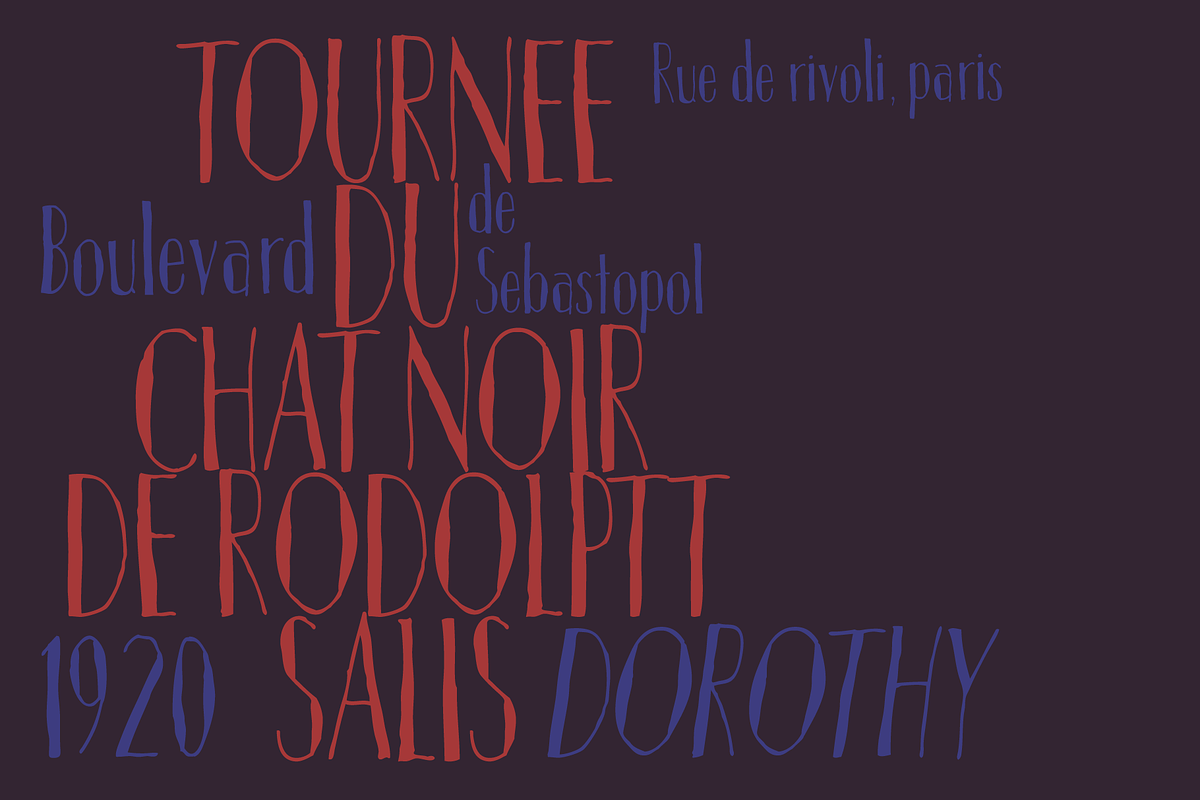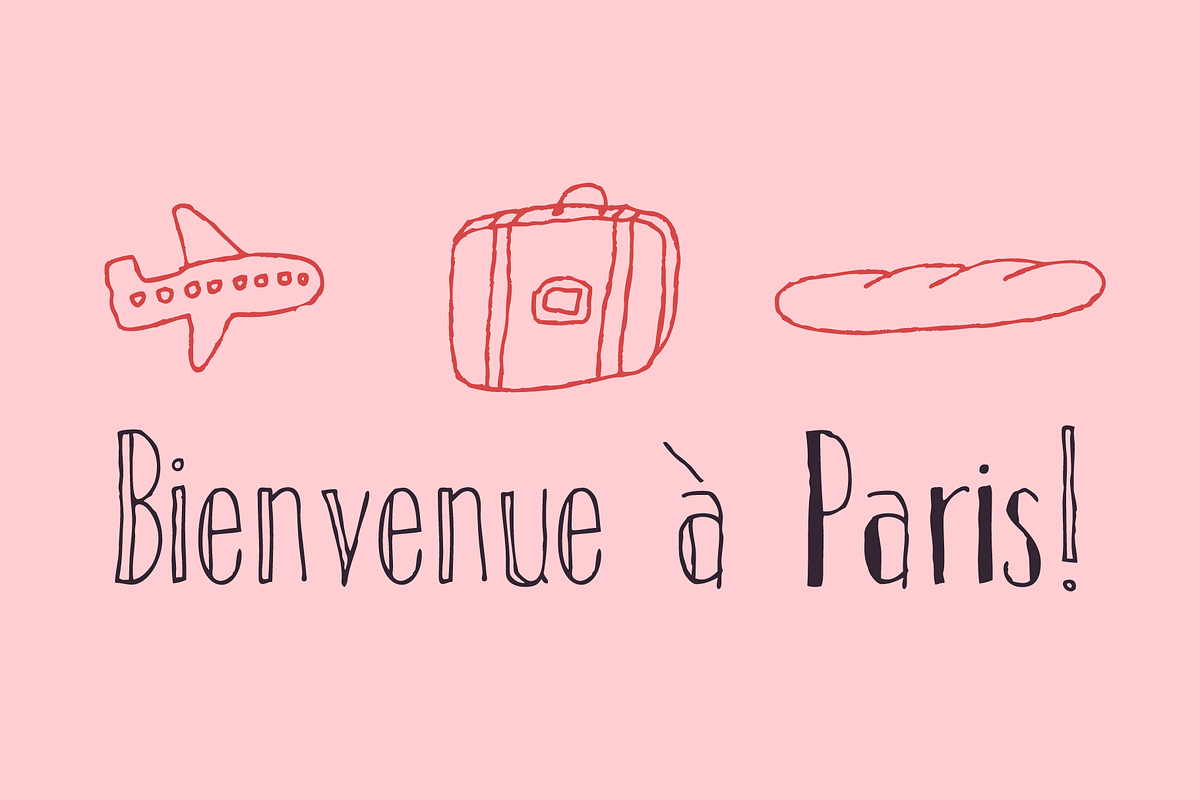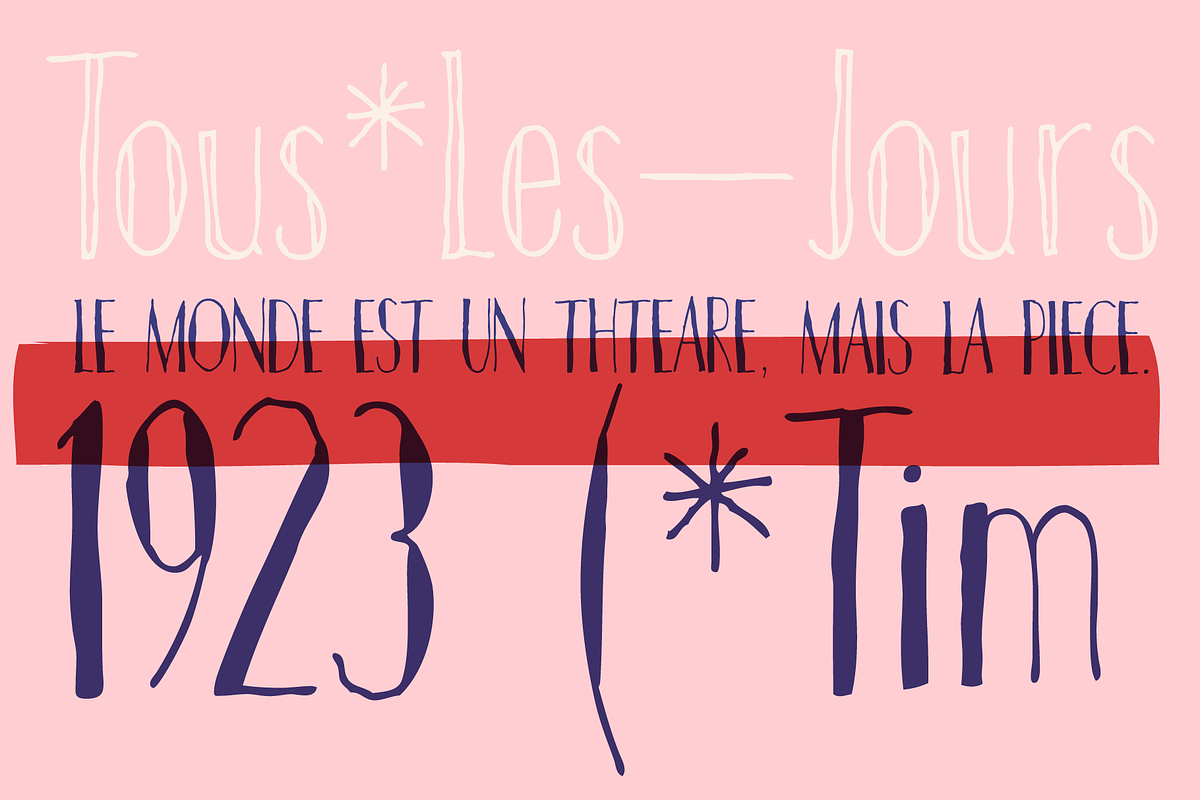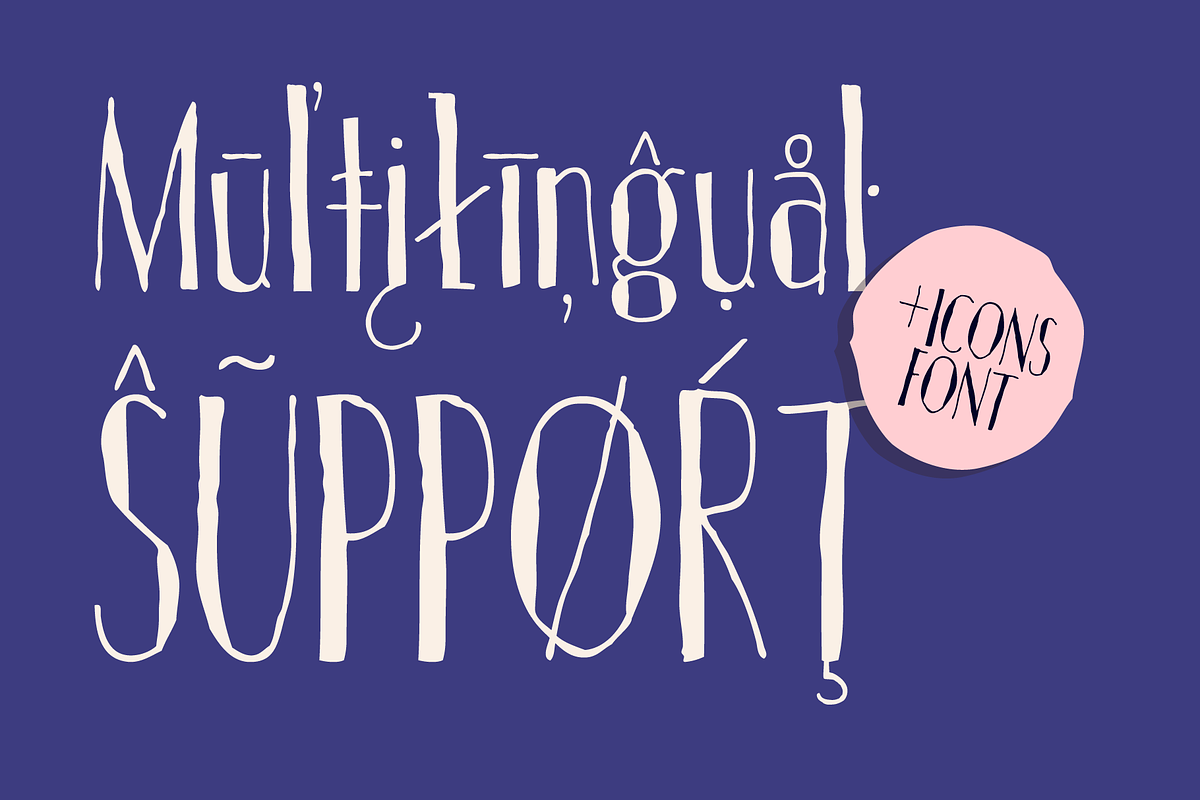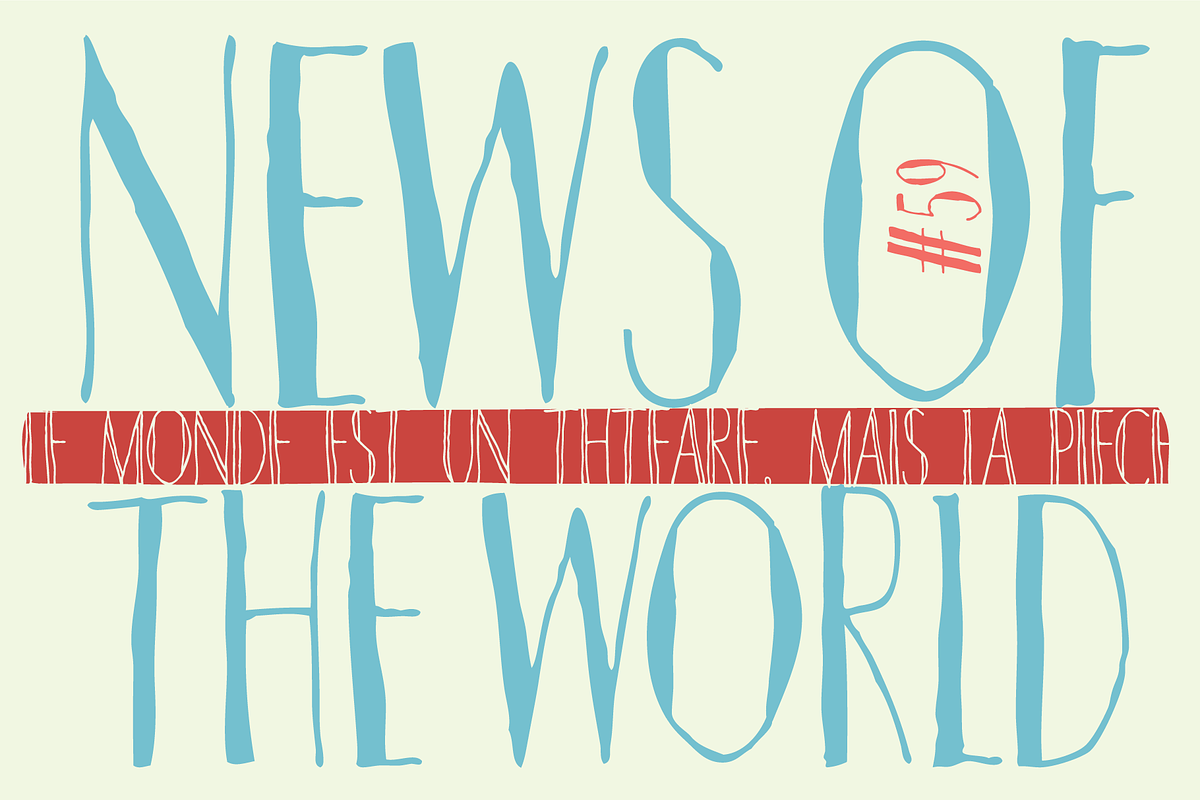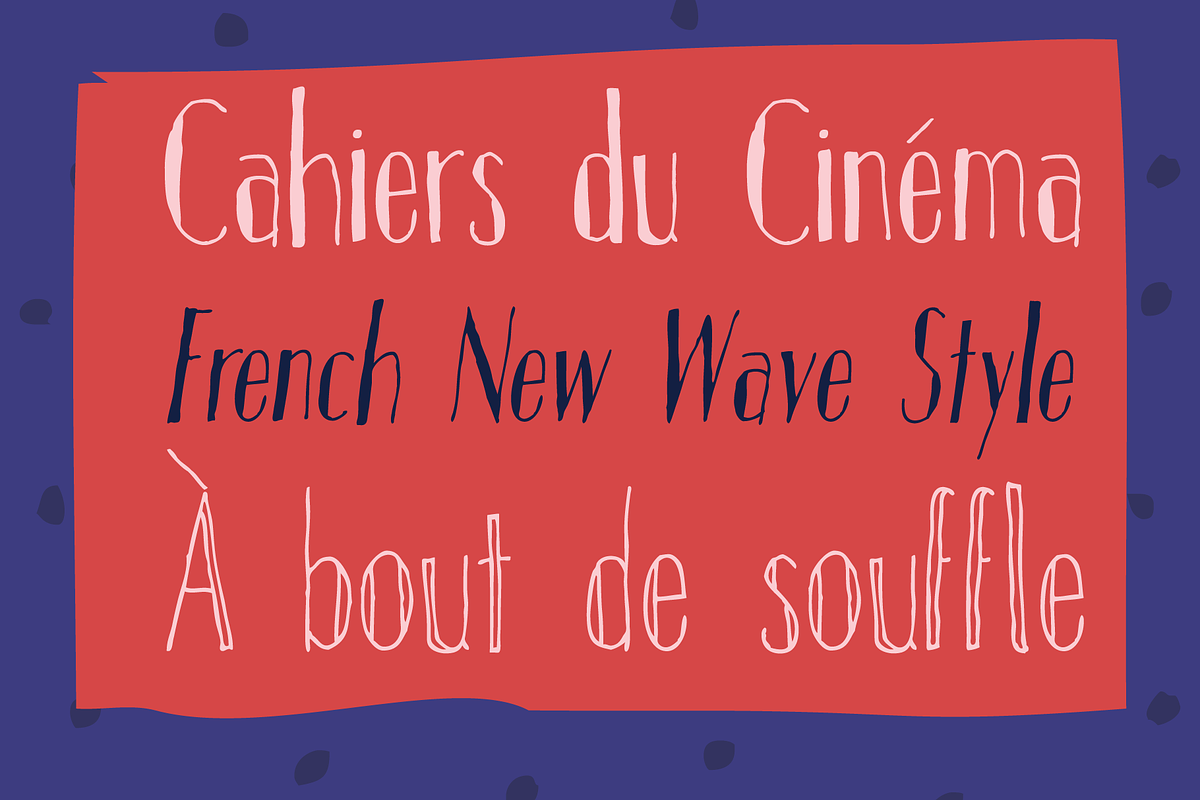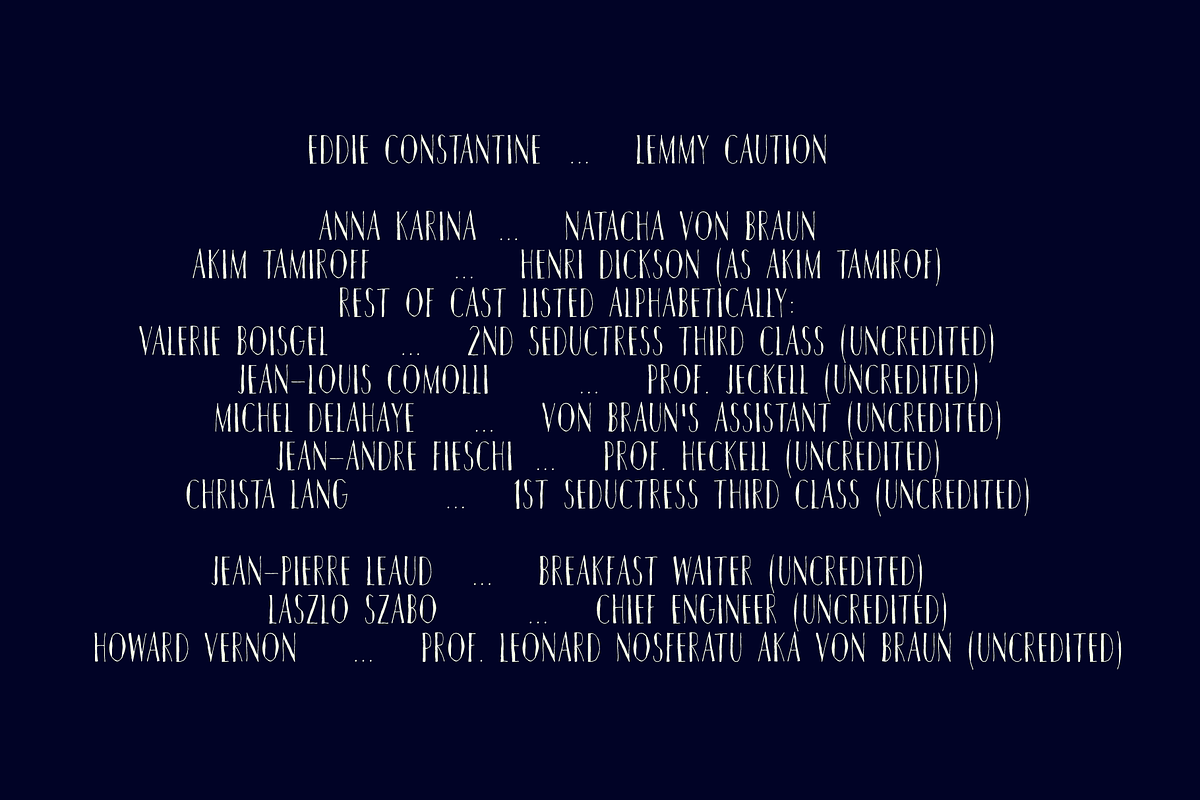
TOMO Dora
TOMO Dora is a new face designed by TOMO. A condensed style-driven, sans serif made by hand to add an unique and sweet touch.
Why TOMO Dora is worth a look
TOMO Dora by TOMO Fonts fits naturally into Branding, posters, packaging, typography.